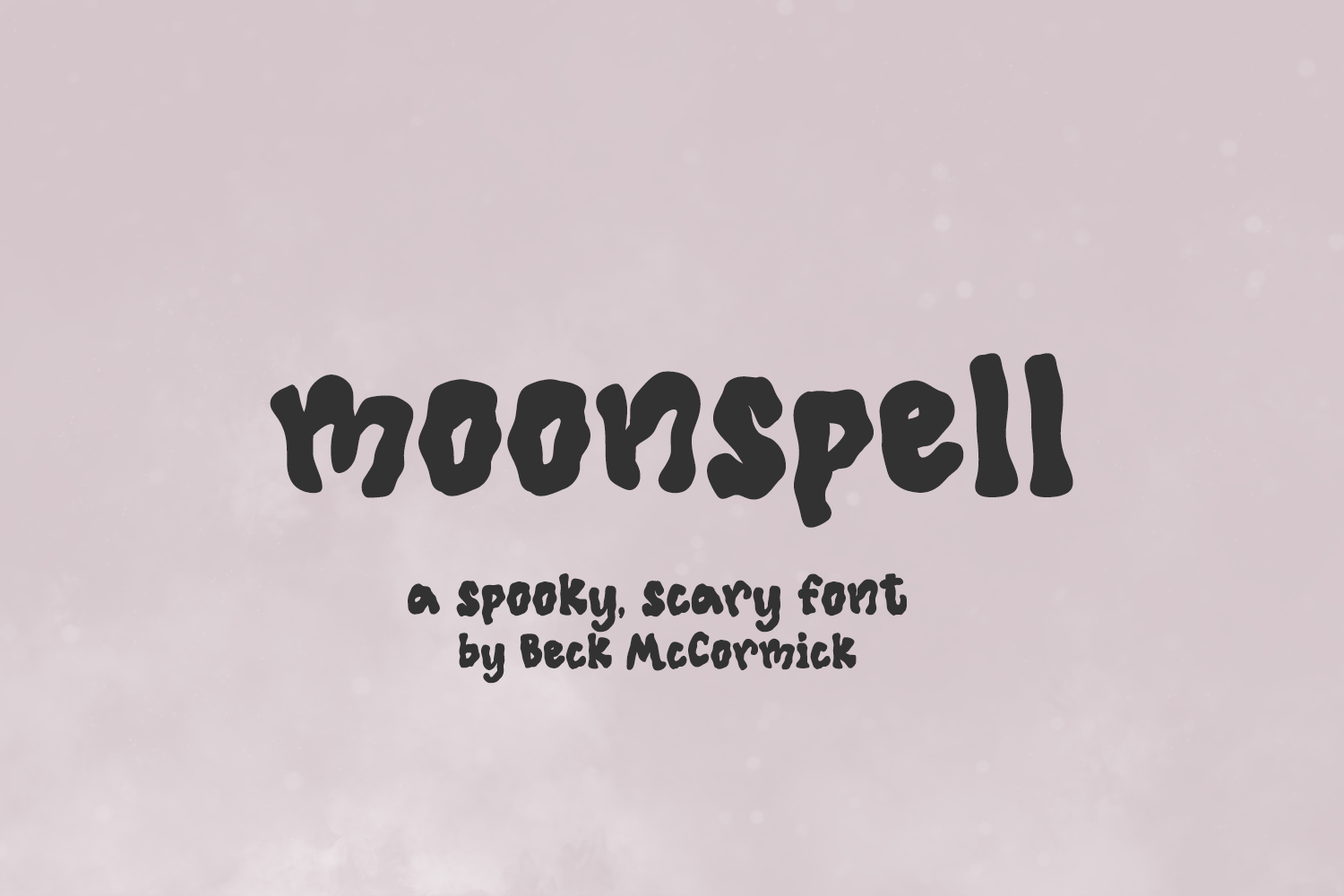
Moonspell Font - A Wavy Font
Introducing Moonspell, a sans font with a wavy aesthetic. Moonspell would be a perfect fit for all projects with a spooky, scary, or creepy feel. Use Moonspell for Halloween or horror-themed projects on your Cricut or Silhouette machine, logo & branding projects, marketing materials, social media graphics, & more.